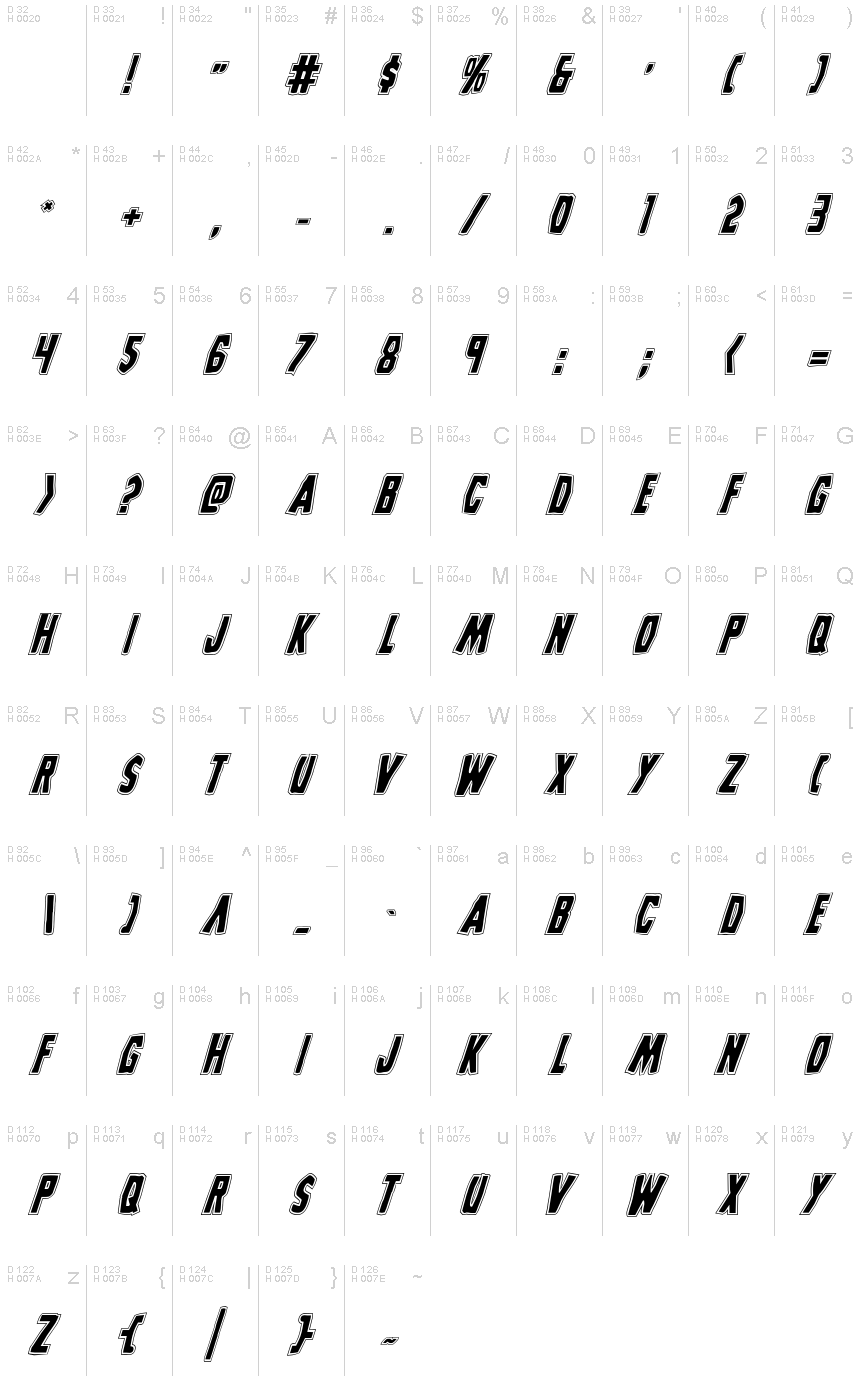
Grim Ghost College Italic, created in 2024 by Iconian Fonts, is a free cartoon display font with the swagger of exaggerated varsity lettering. Its broad, sharply slanted capitals have deep cut-ins, pointed joins, and a tight double contour.
Sportswear brands and campus-themed events can use its aggressive collegiate style for team logos and promotional posters. It also suits arcade games and high-energy music merchandise. Across these settings, the forward lean and carved shapes connect competition, speed, and youthful bravado.